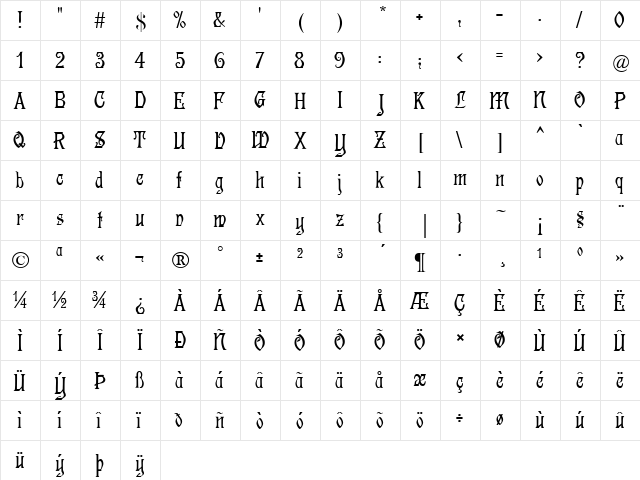
Germanica Regular
| Foundry | Peter Wiegel |
| Designer | Peter Wiegel |
Design Context for Germanica Typeface
Germanica takes a measured approach to typography — its balanced proportions and neutral character make it a reliable workhorse for both digital and print work.